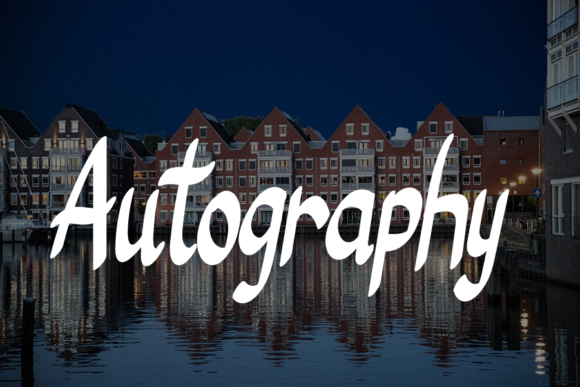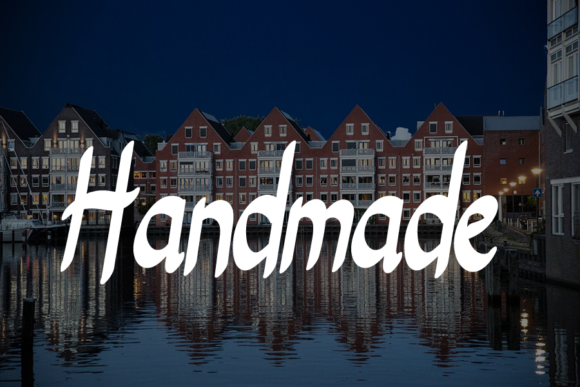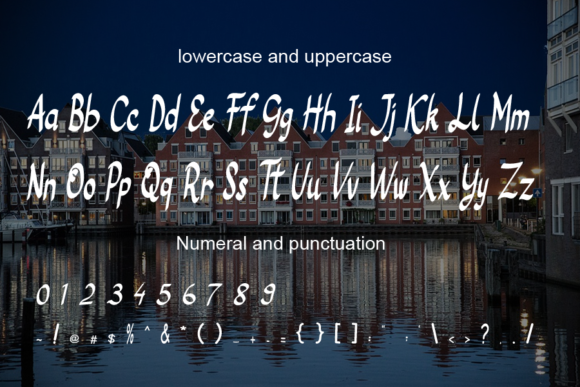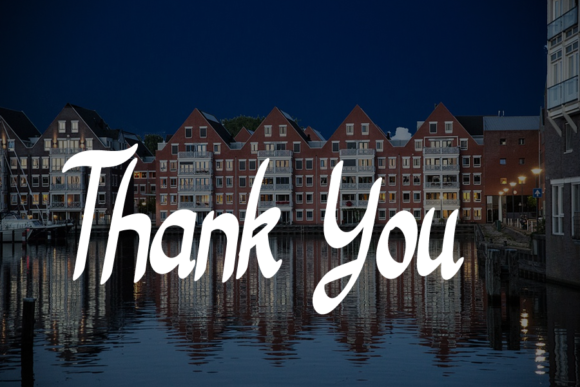
The Amsterdam Font: A Timeless Handwritten Treasure
I’ll never forget the design project that led me to discover the Amsterdam font. I was working on a branding campaign for a new coffee shop, and I needed a font that would capture the warm, cozy atmosphere of their stores. After hours of scrolling through font libraries, I stumbled upon Amsterdam, and it was love at first sight! ✨
- ✨ Unique and beautiful letterforms that add a touch of personality to any design
- ✅ Perfect for creating eye-catching logos, branding, and quotes
- ✅ Works well with a variety of design styles, from modern to vintage
While Amsterdam is an amazing font, there are a few things to keep in mind: 🤔
- ⚠️ Some letters may not work well in all-lowercase or all-uppercase text
- ⚠️ Limited availability of certain diacritical marks
- Experiment with OpenType features, such as stylistic alternates and glyphs, to add visual interest
The Story Behind Amsterdam
Amsterdam was designed by a talented type designer who wanted to create a font that would evoke the charm and character of handwritten letters. Inspired by vintage typography and classic calligraphy, Amsterdam is a true treasure for designers and crafters alike. 📝
A: Amsterdam is perfect for creating eye-catching logos, branding, and quotes. Experiment with different OpenType features and glyphs to add visual interest.
Q: Is Amsterdam suitable for body text?
A: While Amsterdam is highly legible, it’s best suited for headlines, titles, and short paragraphs. For longer body text, consider using a more traditional serif or sans-serif font.